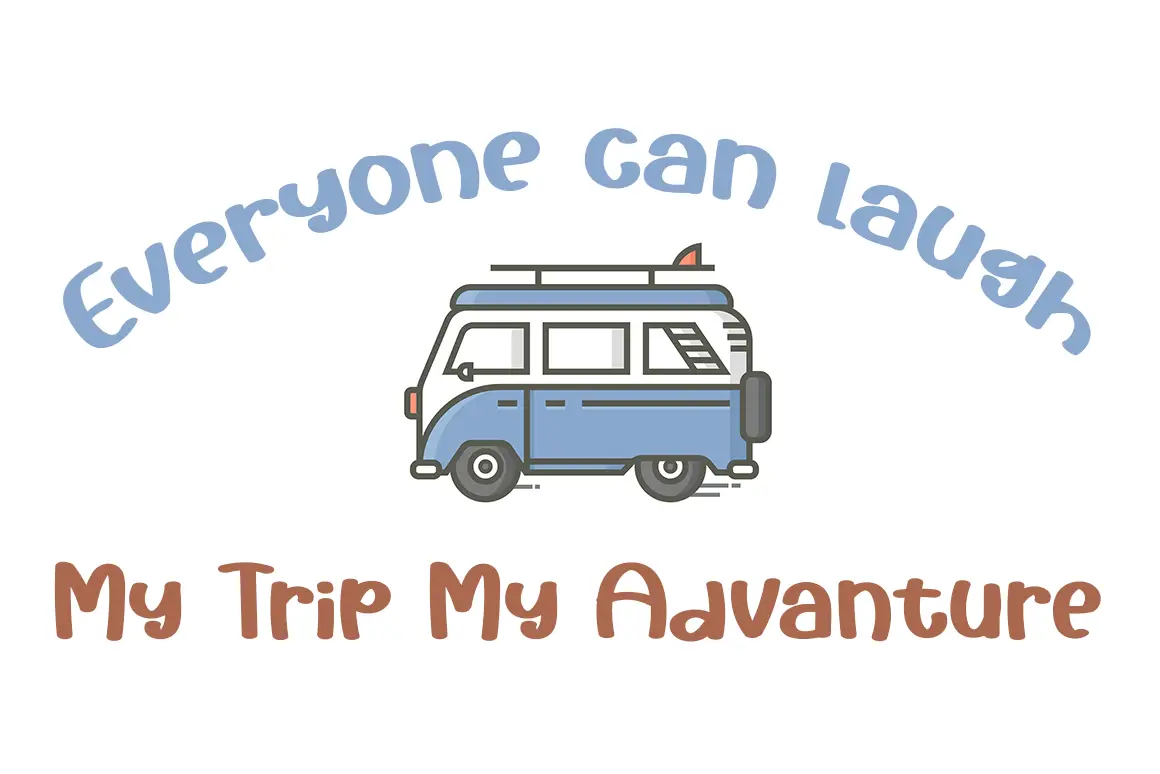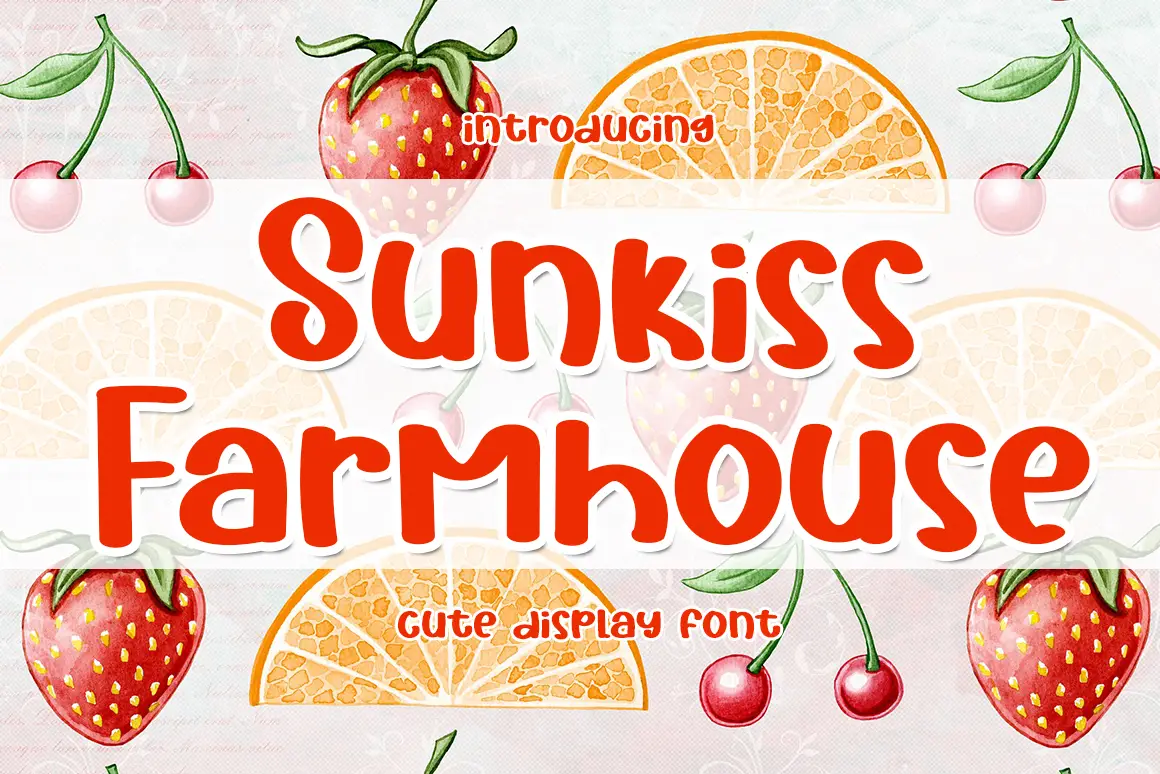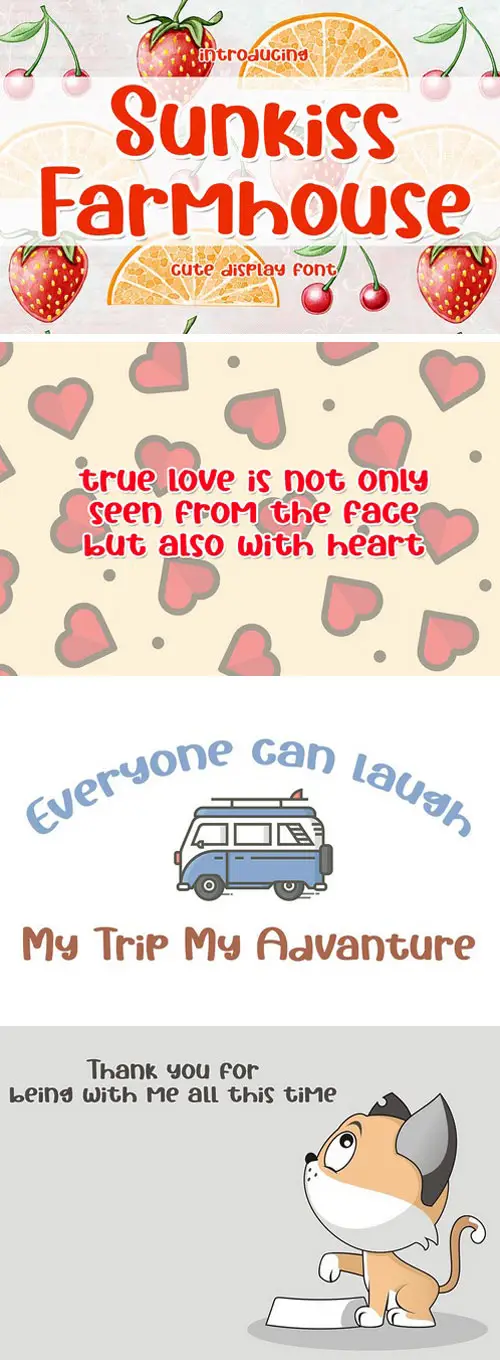
The Sunkiss Farmhouse Display Font is a charming and elegant typeface designed to bring a touch of rustic beauty to your projects. With its unique blend of modern and vintage styles, this font is perfect for creating stunning headlines, logos, and branding materials.
- Stylish display font with a farmhouse aesthetic
- Uppercase and lowercase letters included
- Numerals and punctuation marks
- Weight: Regular, Bold
This font is ideal for branding, packaging, posters, and any project that requires a warm, inviting touch. Use it to create eye-catching titles or to add a personal flair to your designs.